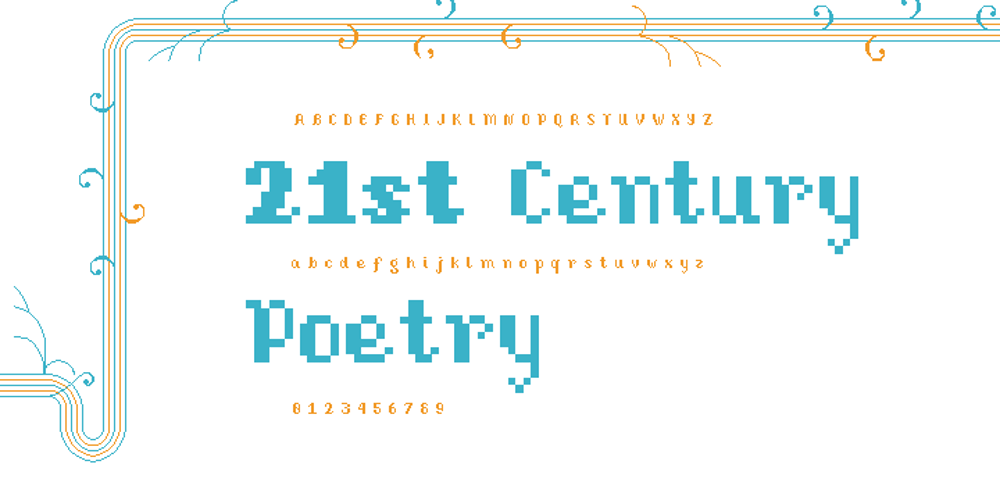
Subix
Subix font
Subix Font Family was designed by Valérie Desrochers and published by Subtitude. Subix contains 2 styles and family package options. Sub experimention with bitmap fonts created subix. A semi serif font with a funny unbalanced touch. Very good for small titles on screen. The dare was good; creating a unique font with square pixels. So enjoy the subtility of bitmap fonts.